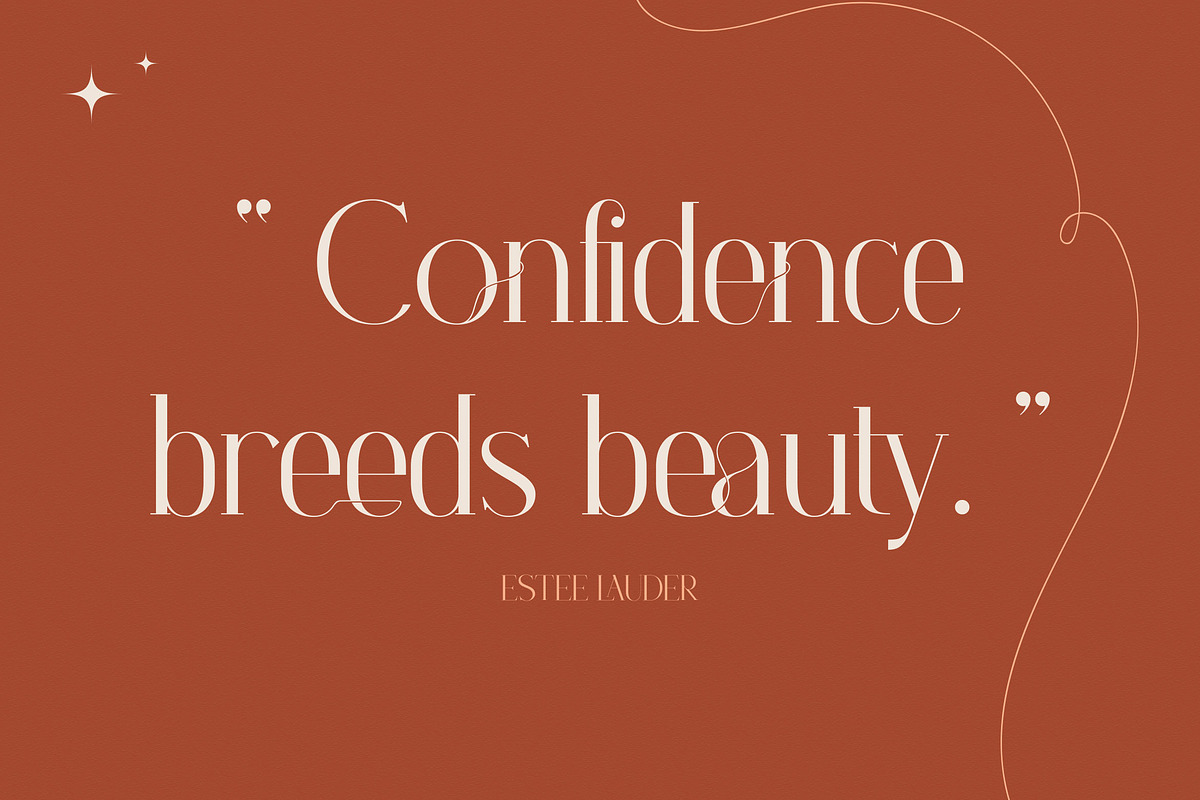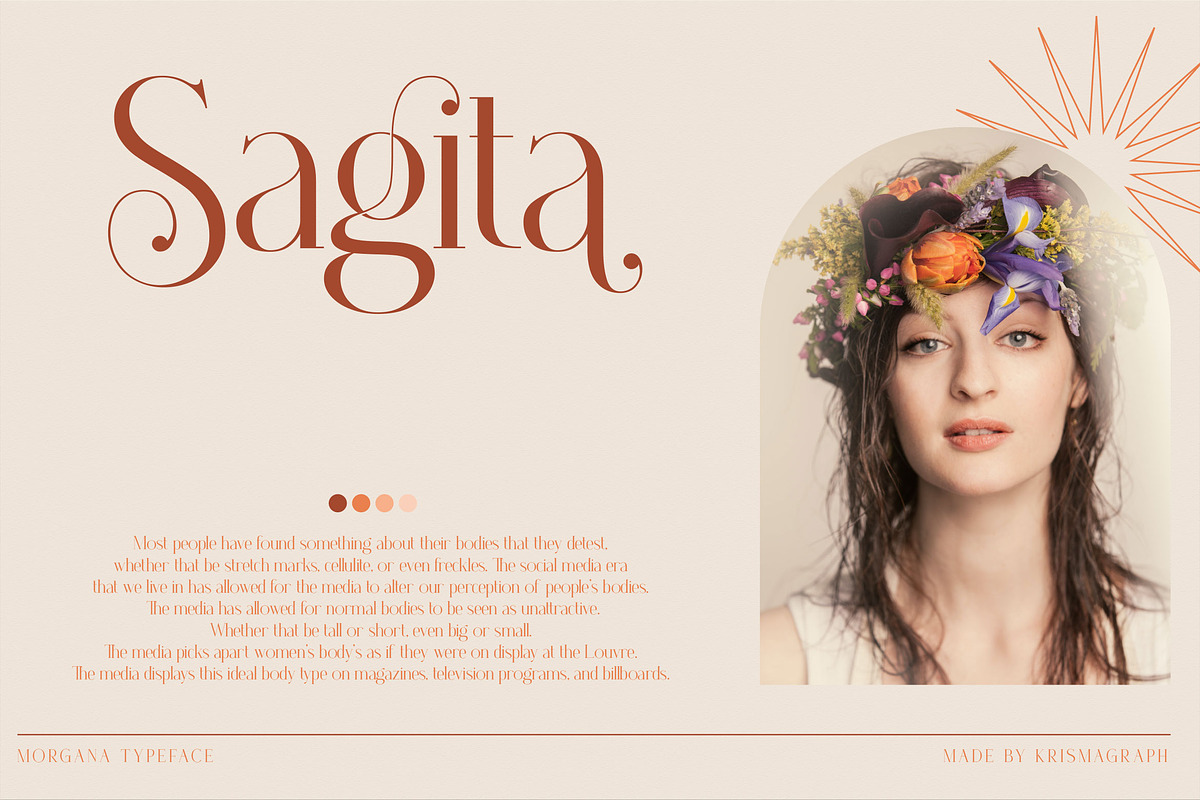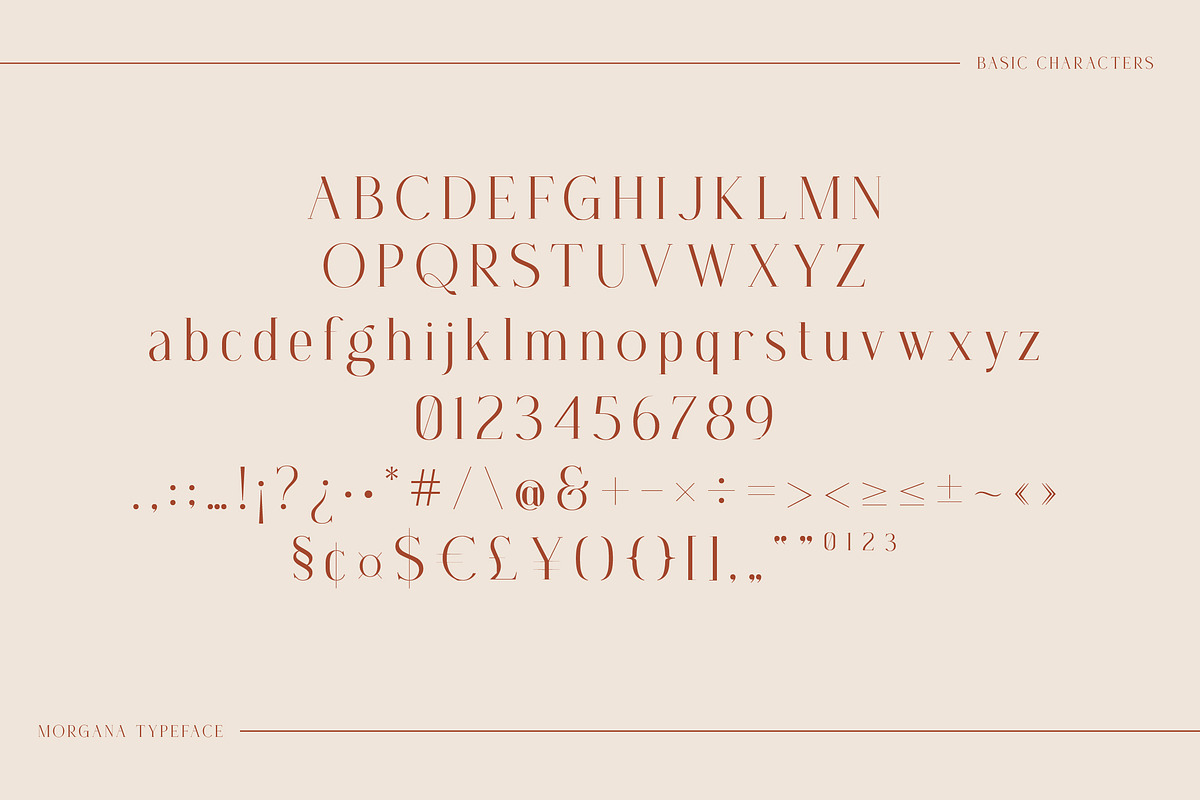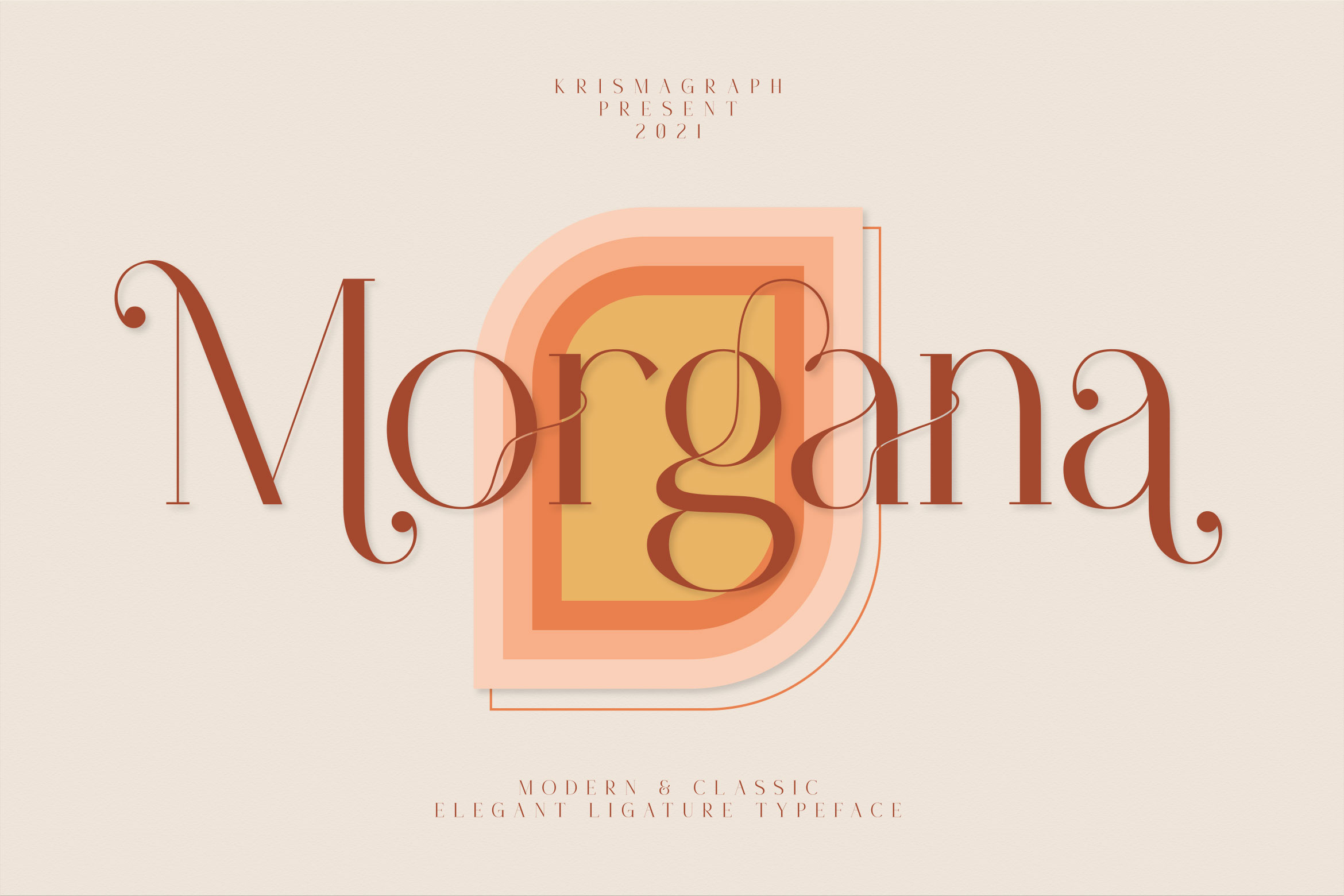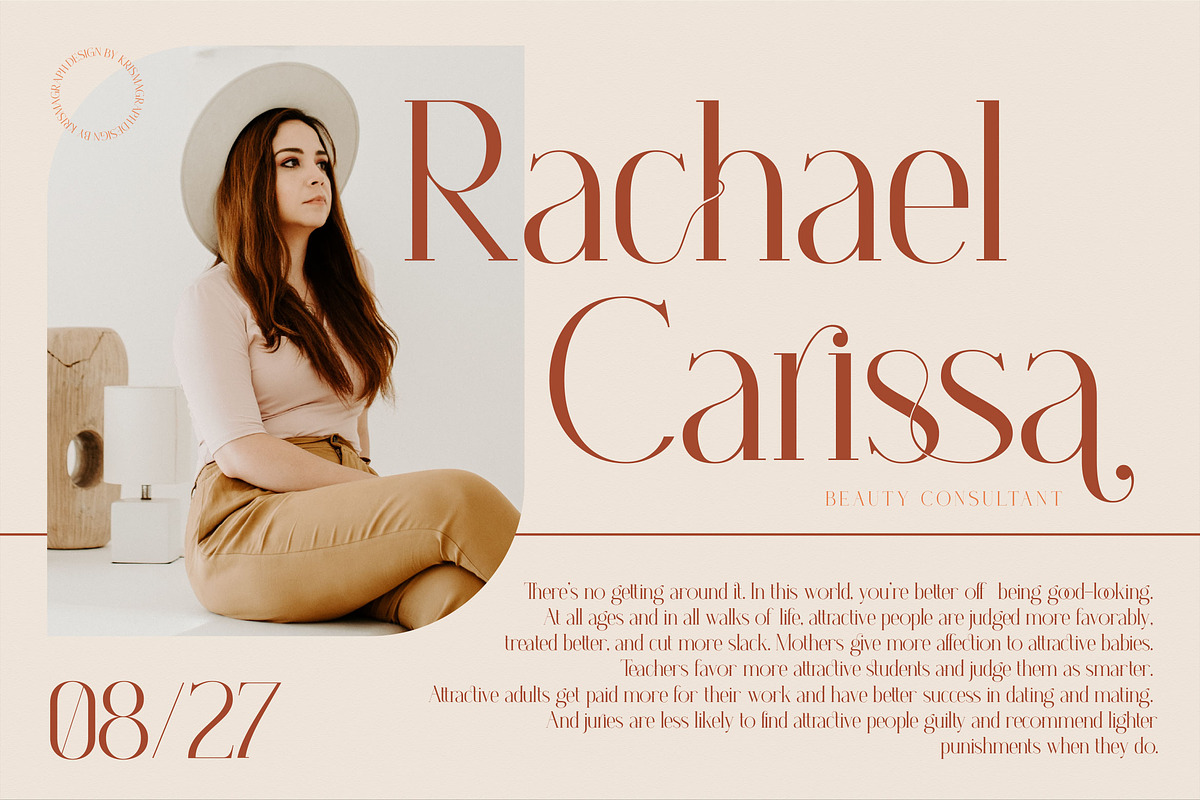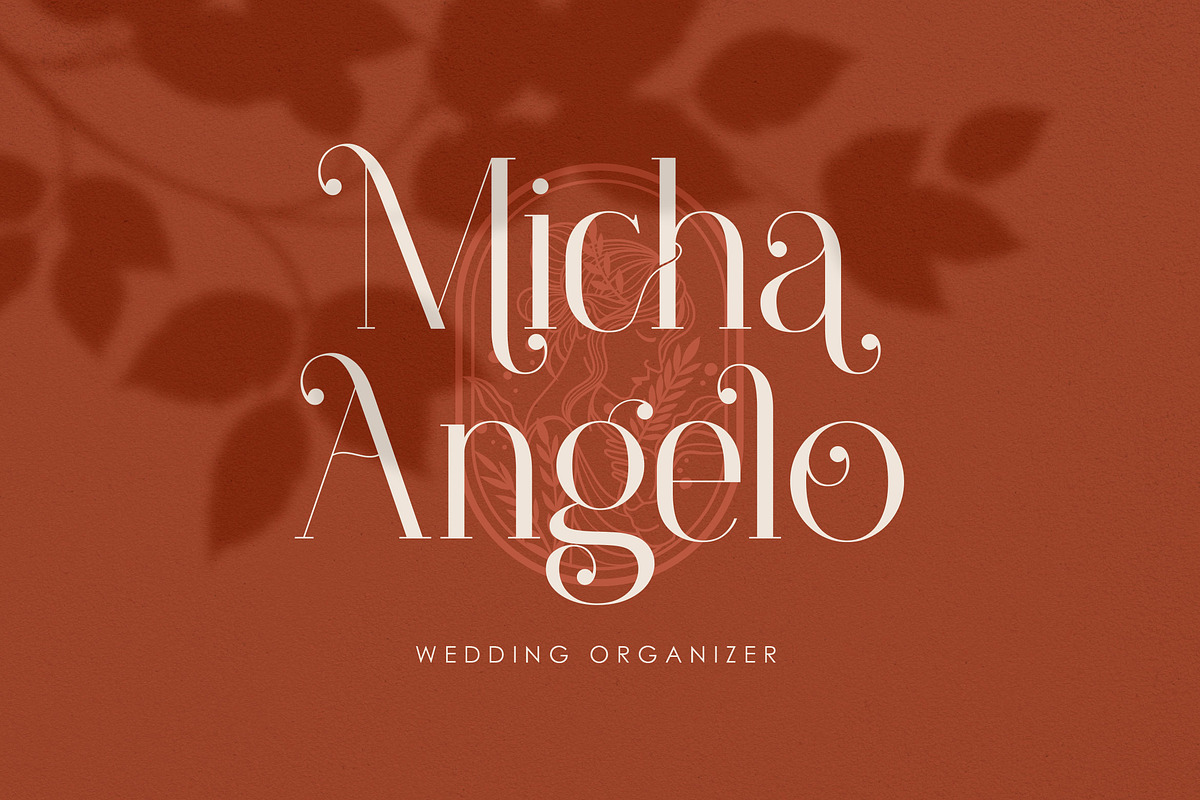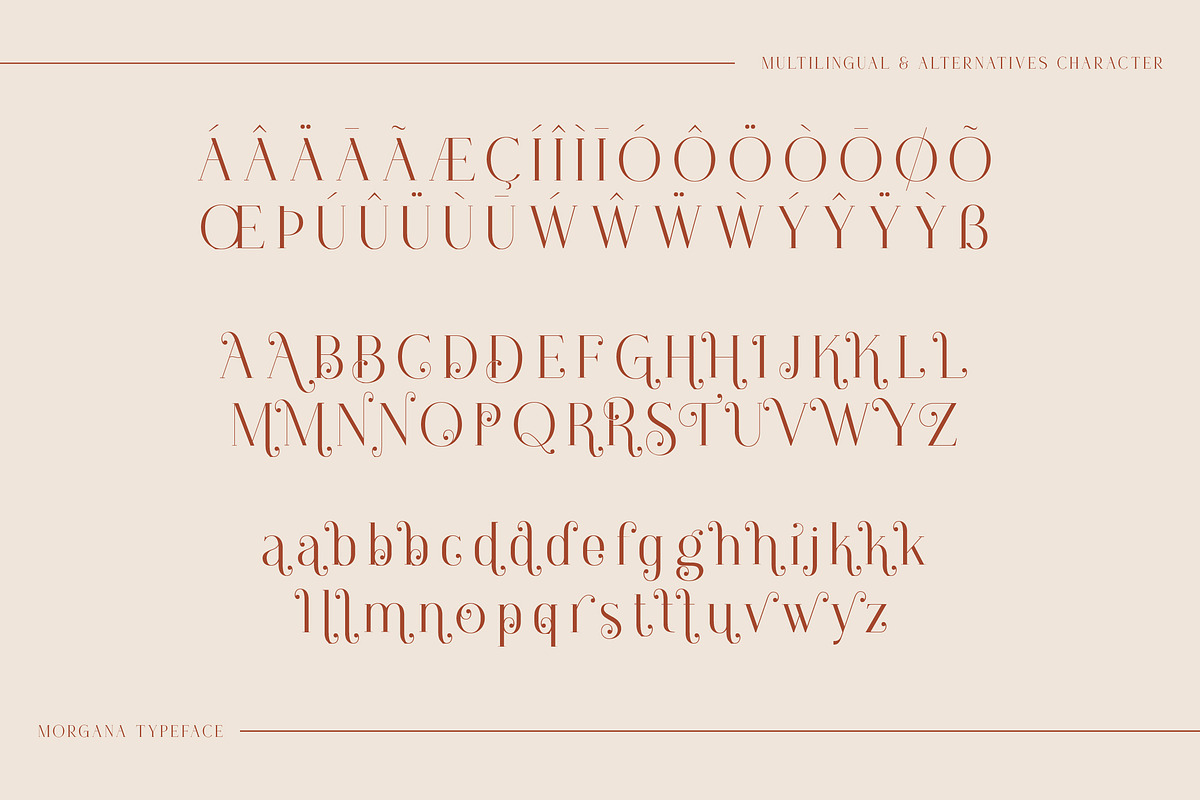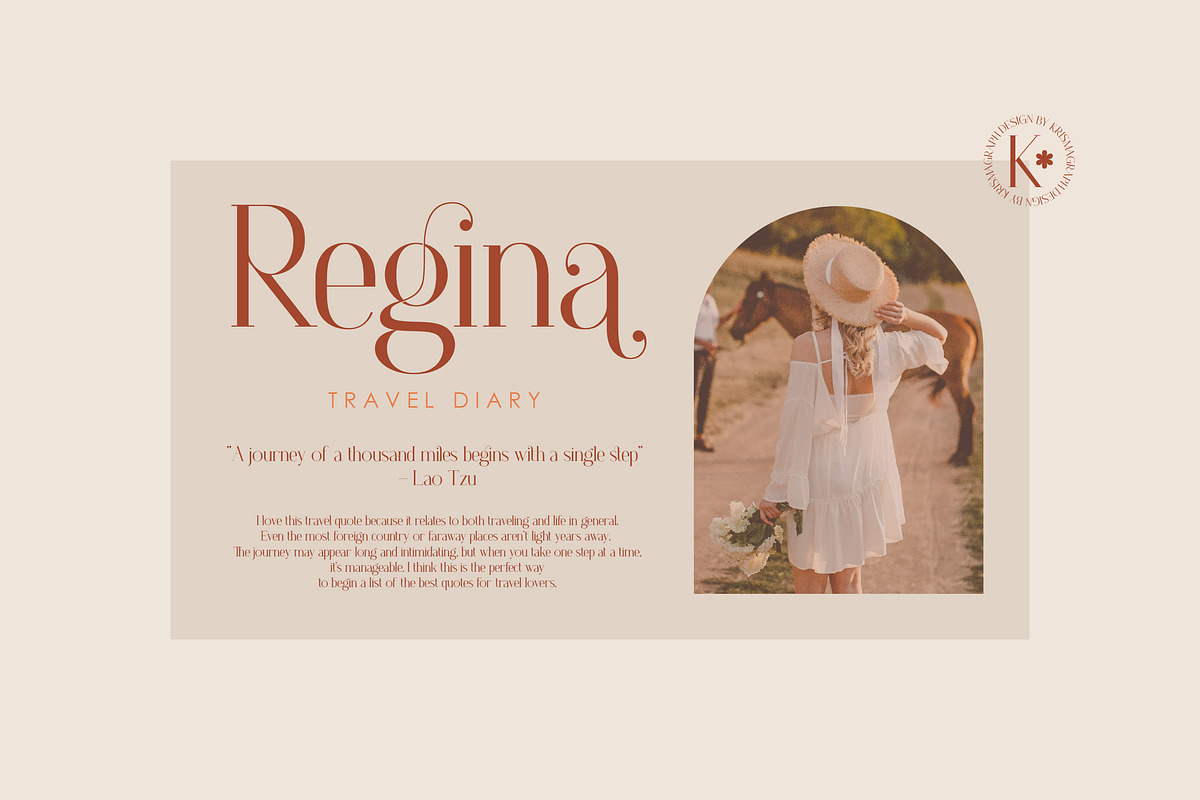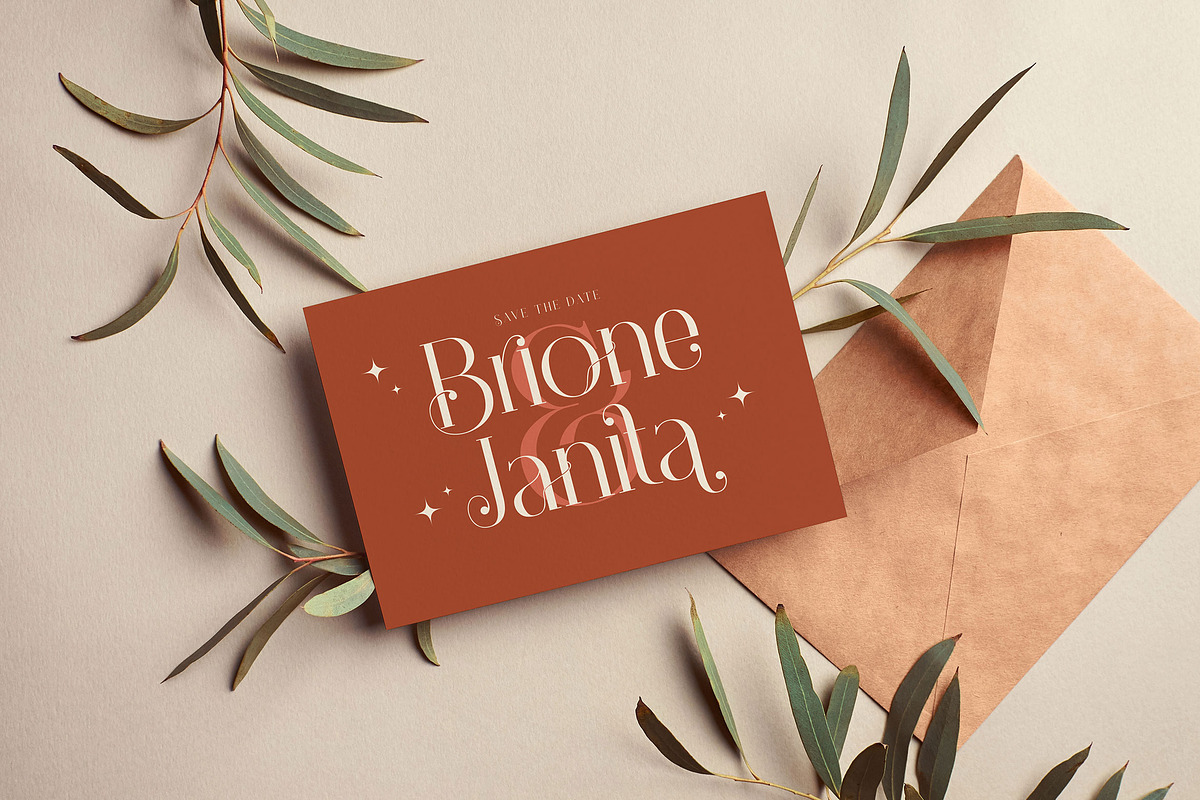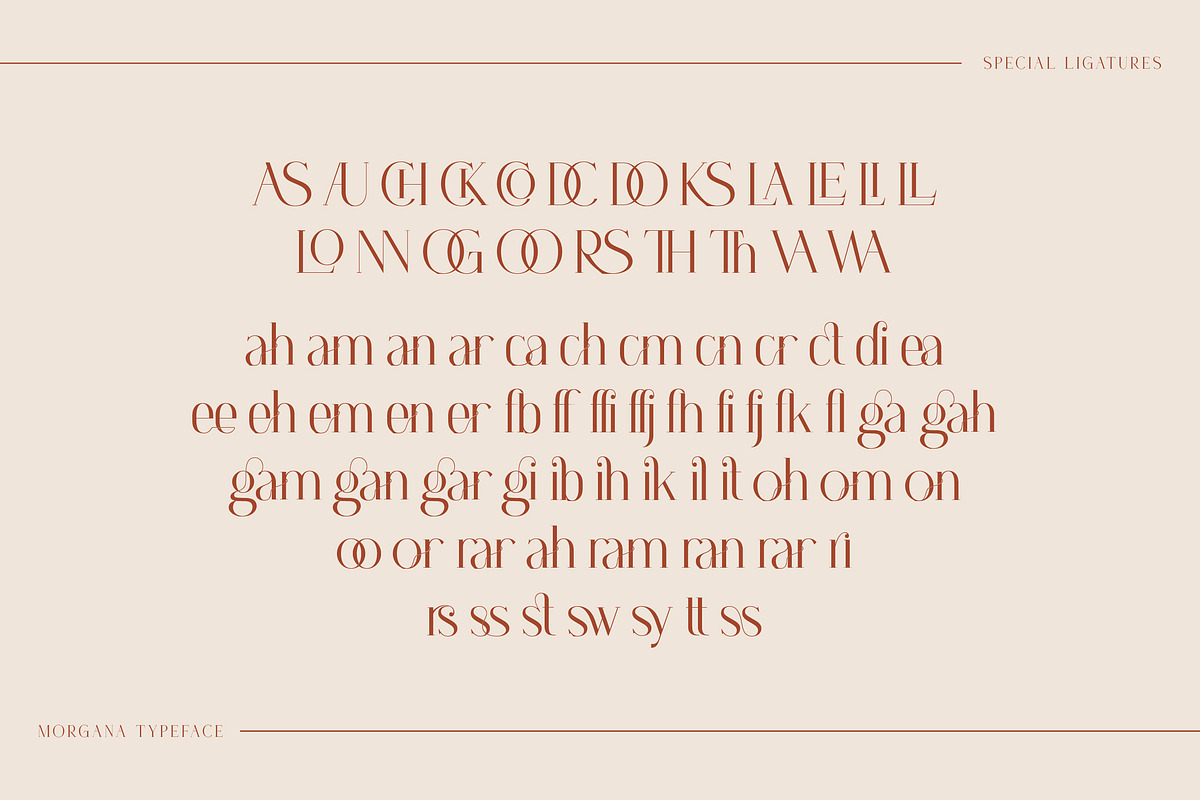
Morgana | Elegant Ligature Typeface
A unique modern & classic ligature font that is a mix of old and new. It’s soft curves mixed with high contrast glyphs lend it self to both feminine and masculine qualities. Equipped with epic ligature, great in layout design for quotes or body copy, and will be unique to the use of the logo design. And also multilingual support.
Fonts include multilingual support